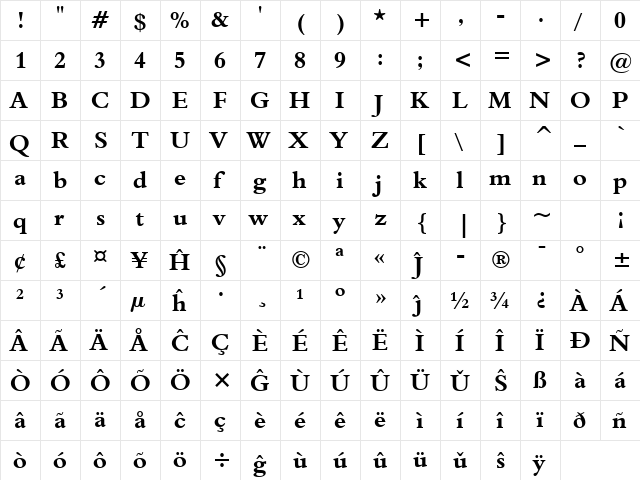
Aldine401 BT Eo Bold
Design Context for Aldine401 BT Eo Typeface
Aldine401 BT Eo takes a measured approach to typography — its balanced proportions and neutral character make it a reliable workhorse for both digital and print work. The heavy weight commands attention and anchors typographic hierarchies.